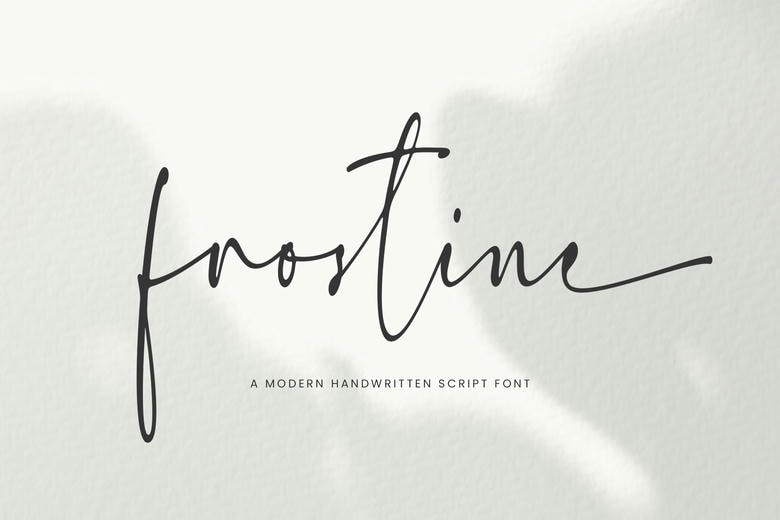
Frostine Font
Frostine is a sleek and delicate handwritten script font with a modern touch. Its light strokes and smooth flow create a refined, contemporary look, making it a great choice for anyone who values subtle sophistication.
Frostine Handwritten Script Font